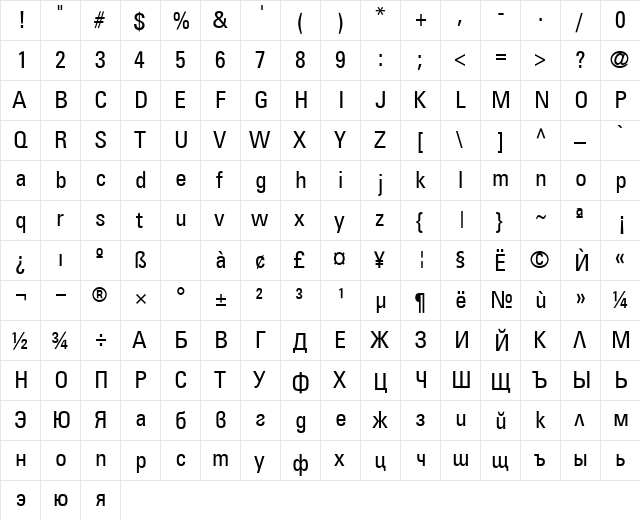
SP_Universal_Condensed Medium
Design Context for SP_Universal_Condensed Typeface
SP_Universal_Condensed is a composed and adaptable typeface that performs quietly and consistently across a wide range of design contexts. The condensed width makes it efficient for tight spaces without sacrificing legibility.